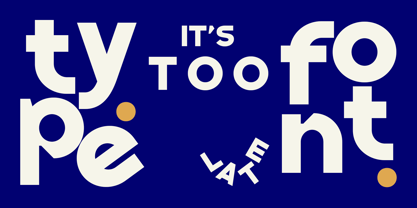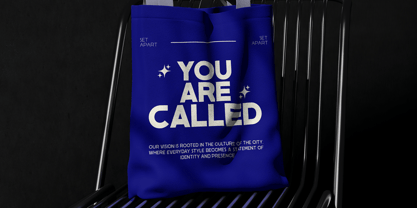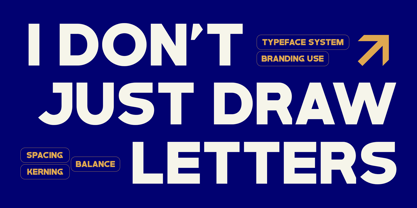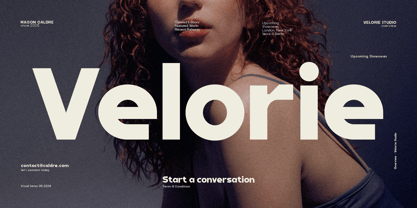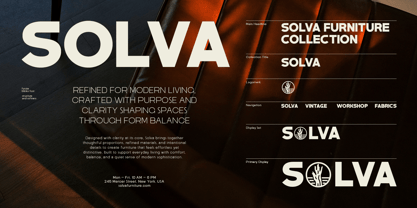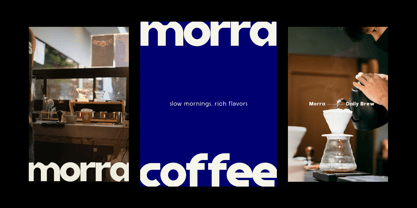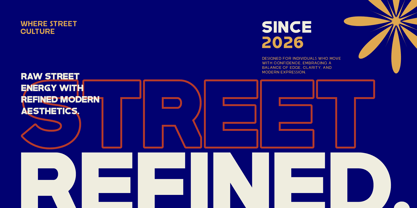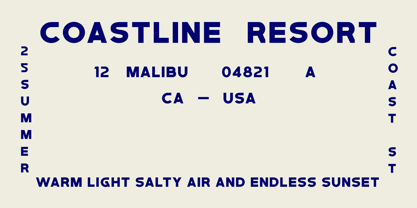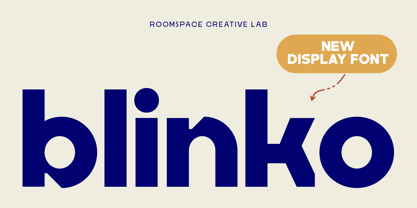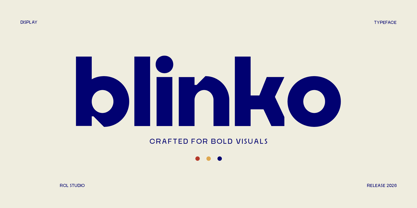
Blinko
Blinko is a bold rounded display sans-serif designed to bring energy and personality into modern design. With its soft curves and chunky proportions, it creates a strong yet friendly presence that stands out instantly. Carefully crafted with smooth shapes and balanced spacing, Blinko ensures readability while maintaining its playful character. The rounded terminals and bold weight make it highly effective for eye-catching compositions and expressive typography. Perfect for branding, logos, packaging, posters, social media, and editorial headlines, Blinko adds warmth and impact to any visual project.